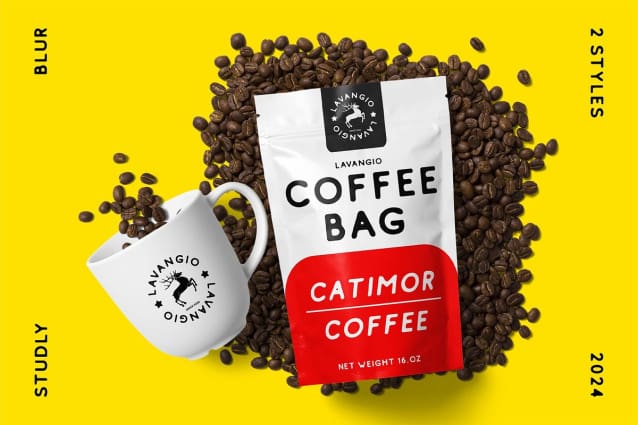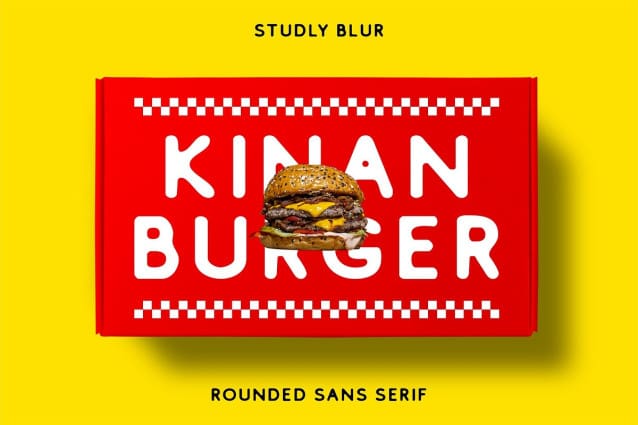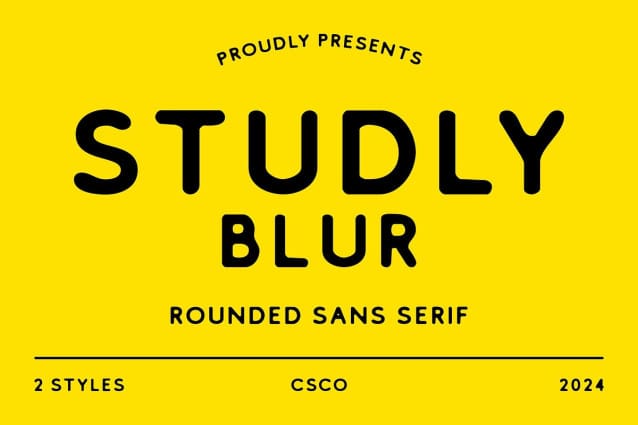
Studly Blur Font
Studly Blur Font is a sans serif font with a bold form and blur effect, perfect for children’s books, stationery, logos, and more. Its strong, playful design makes it ideal for eye-catching and engaging designs.
Featuring a bold structure and a subtle blur effect, Studly Blur stands out in any design. The combination of bold lines and blurred edges creates a dynamic and lively appearance, adding an element of fun and creativity to your projects.
Studly Blur is perfect for designs aimed at a younger audience, such as children’s books and stationery. Its bold, playful style makes it engaging and easy to read, while the blur effect adds a touch of whimsy and uniqueness.
Whether used for logos, headlines, or body text, Studly Blur is versatile and easy to incorporate into various designs. The font’s bold form and blur effect make it suitable for a wide range of applications, ensuring your designs are both captivating and memorable.